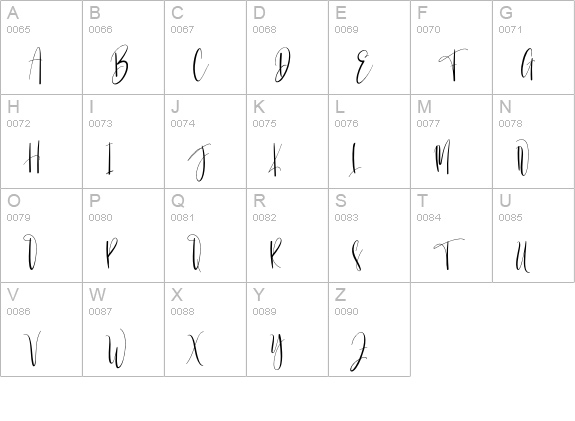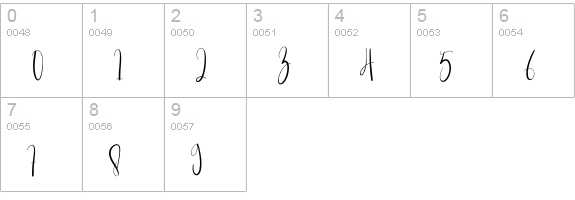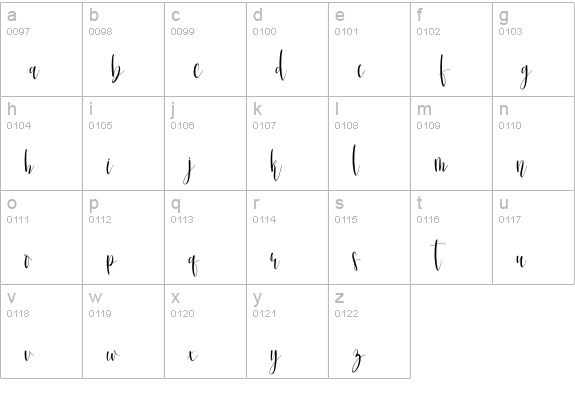
Bonekastar Font Details
Bonekastar is a free for personal use font in the Script > Handwritten category, designed by scratchones. It has been downloaded 2 times and is available for Windows, Mac and Linux.
Bonekastar font is a stunning display typeface that exudes elegance and sophistication. With its intricate details and unique design, this font is perfect for adding a touch of luxury to your projects. The sleek lines and sharp angles of Bonekastar make it a versatile choice for a wide range of design applications, from logos to invitations to branding materials.